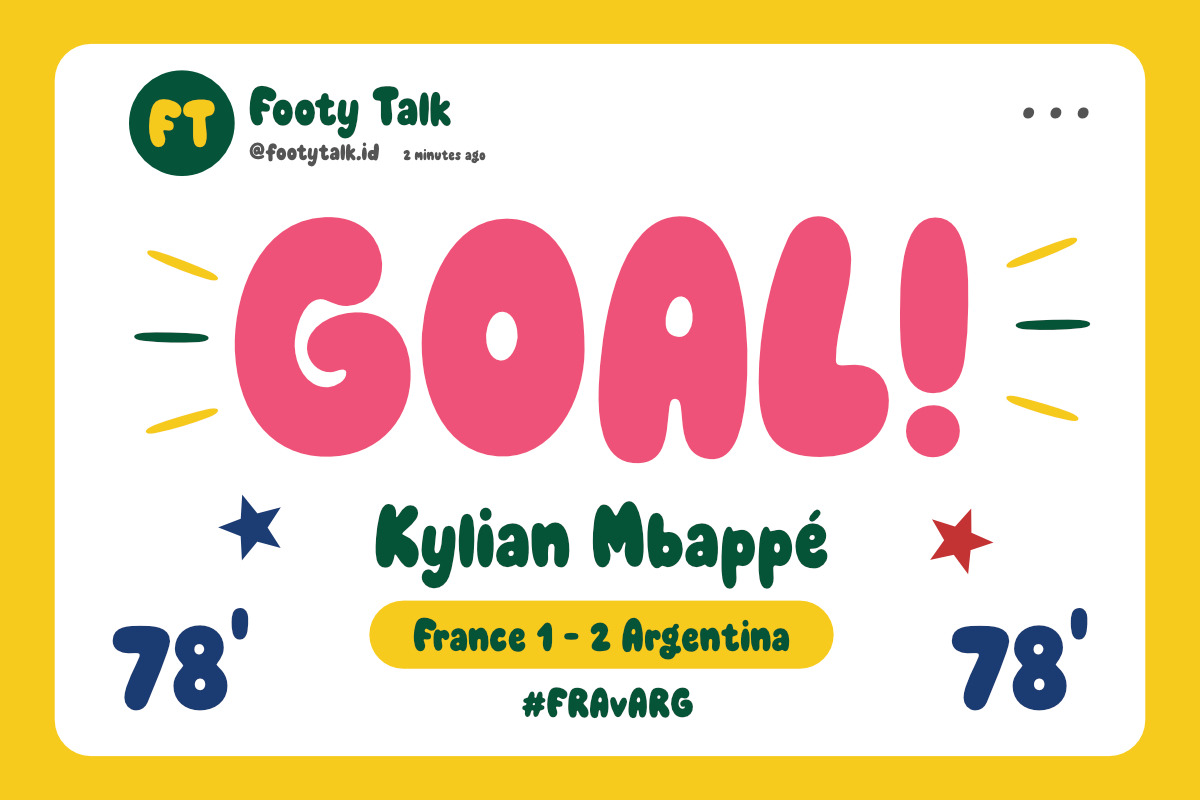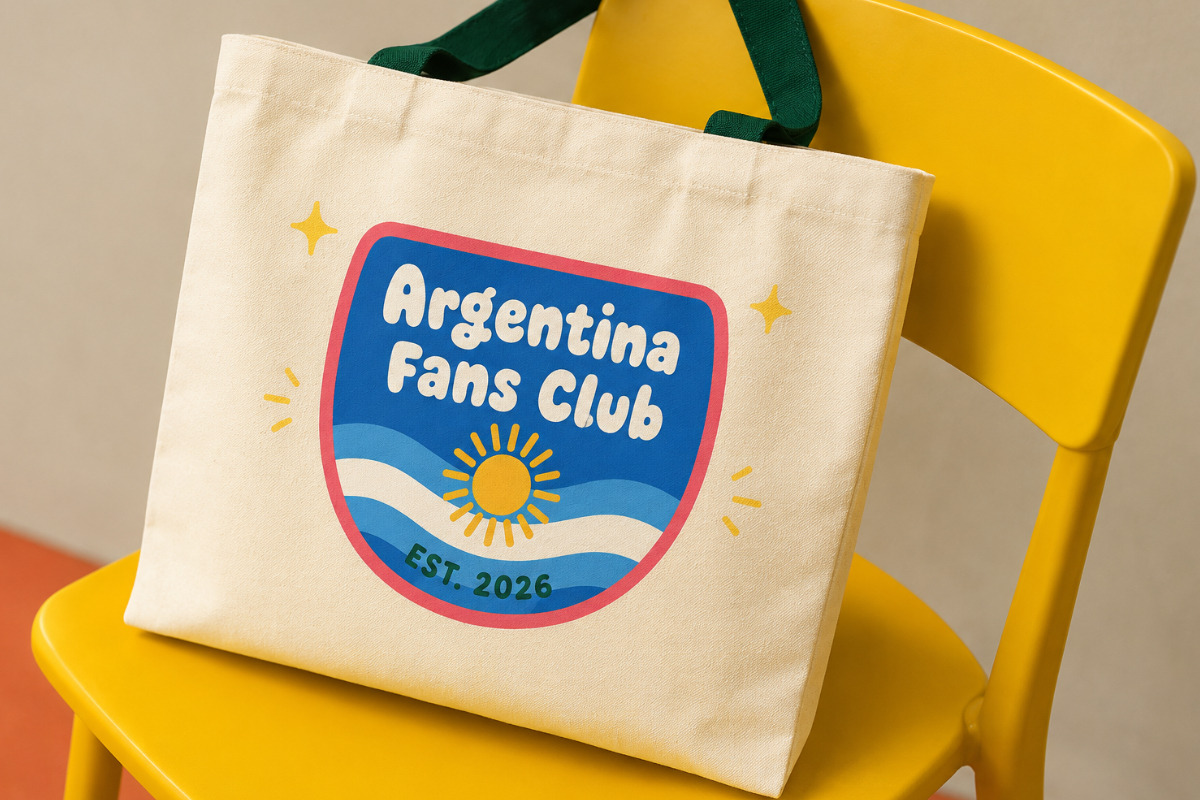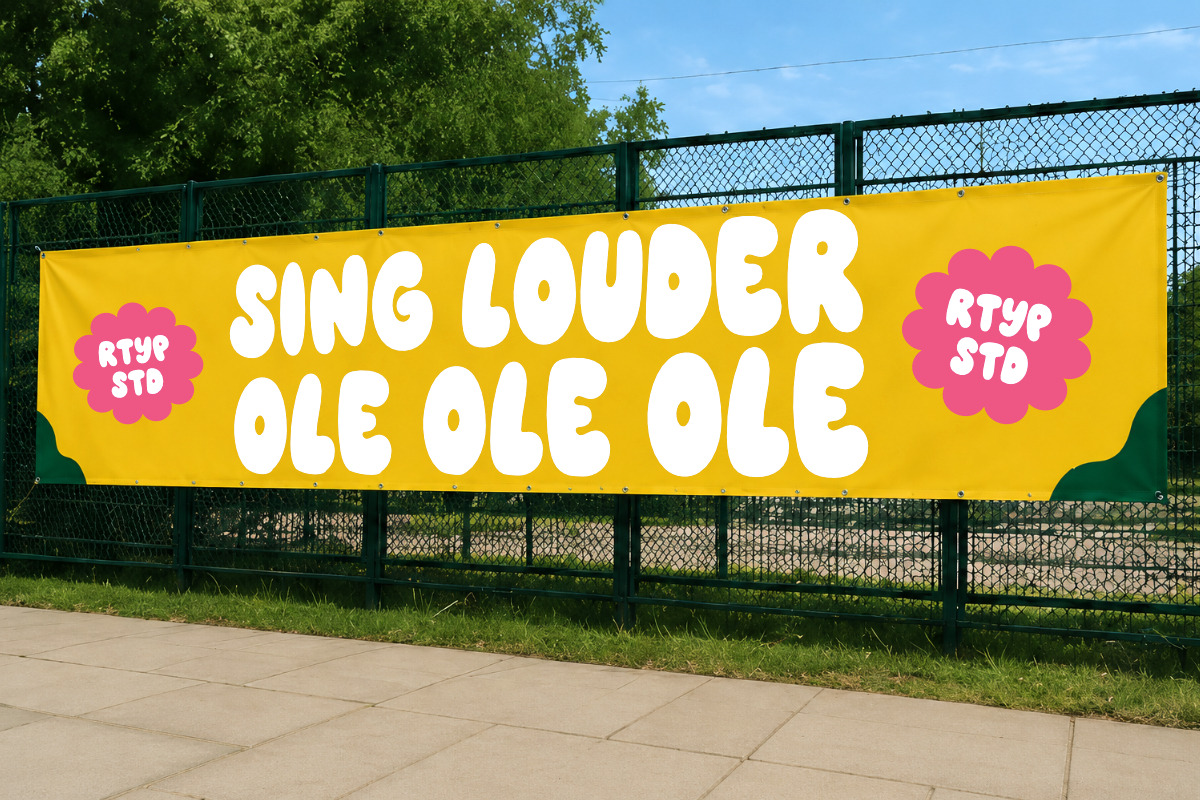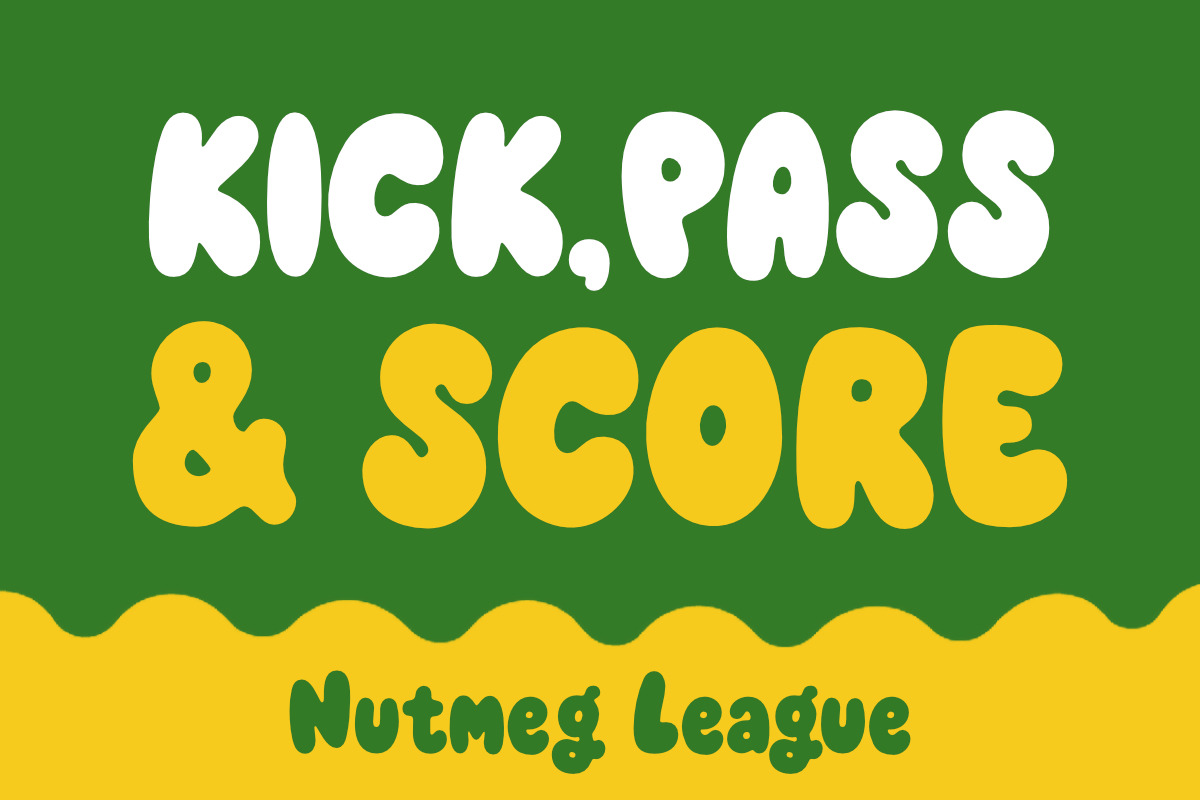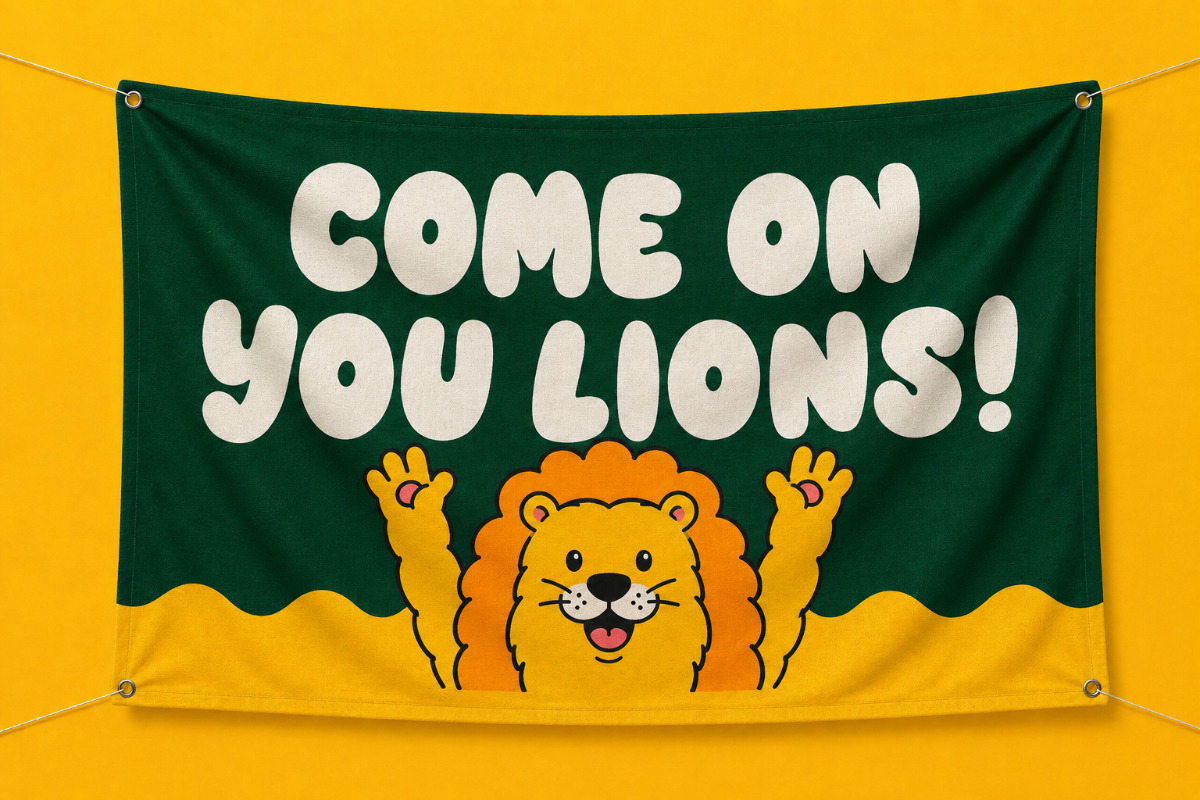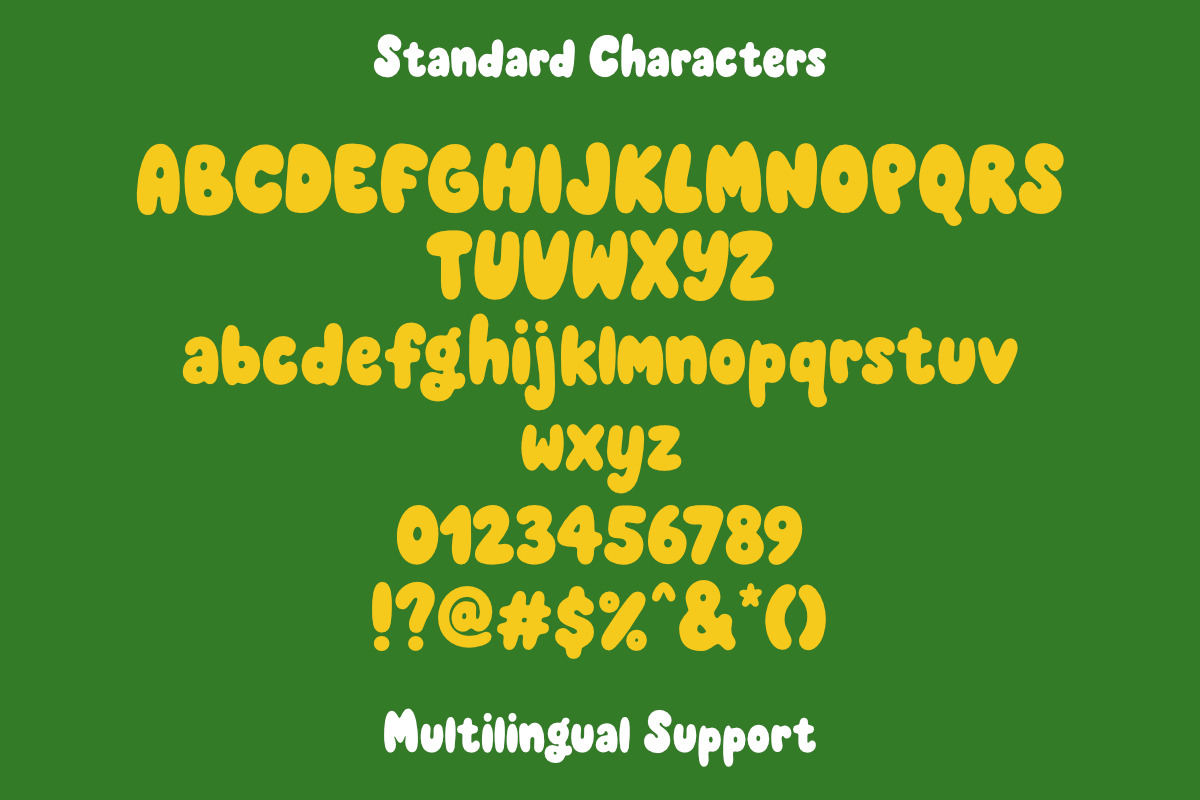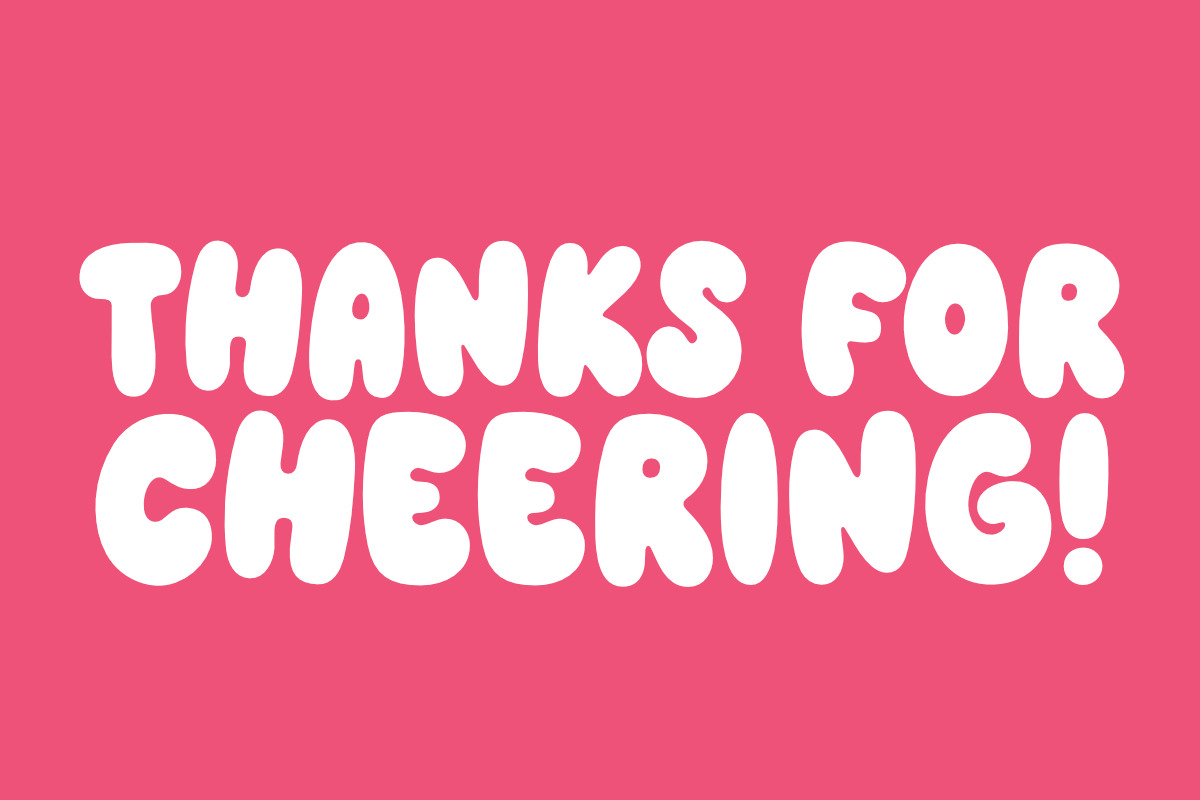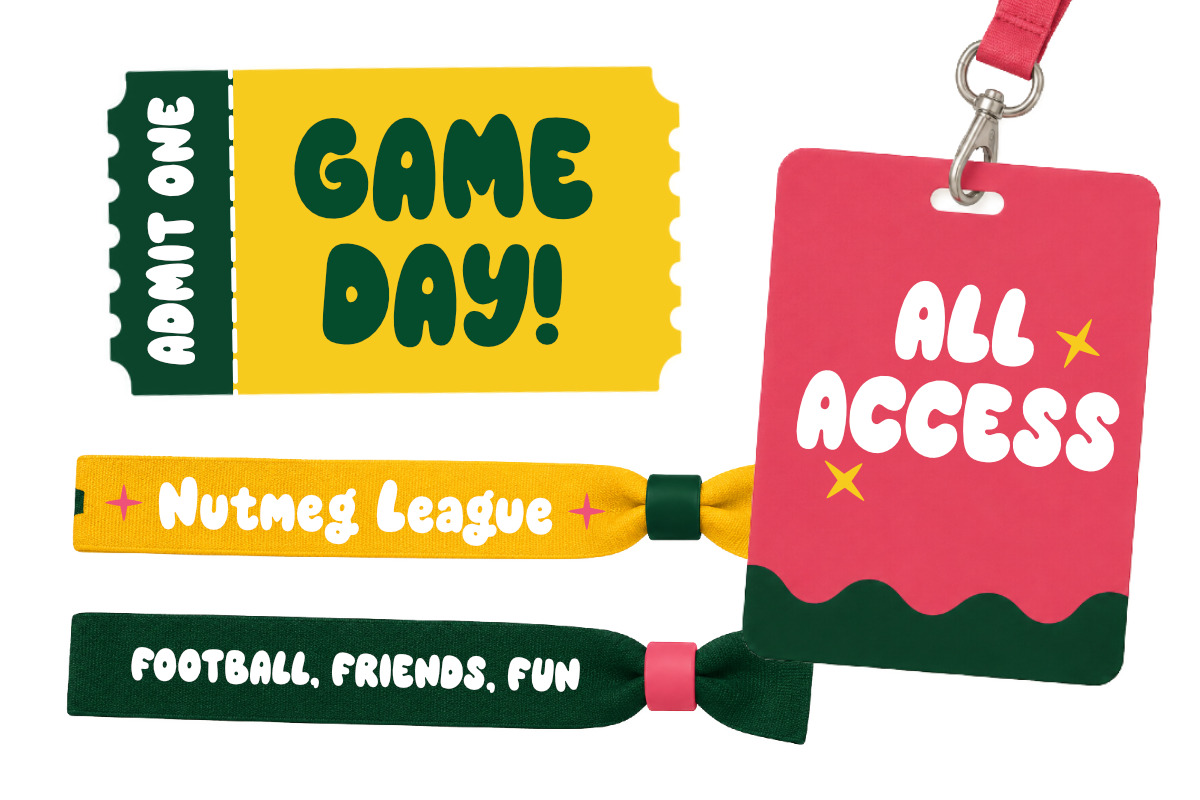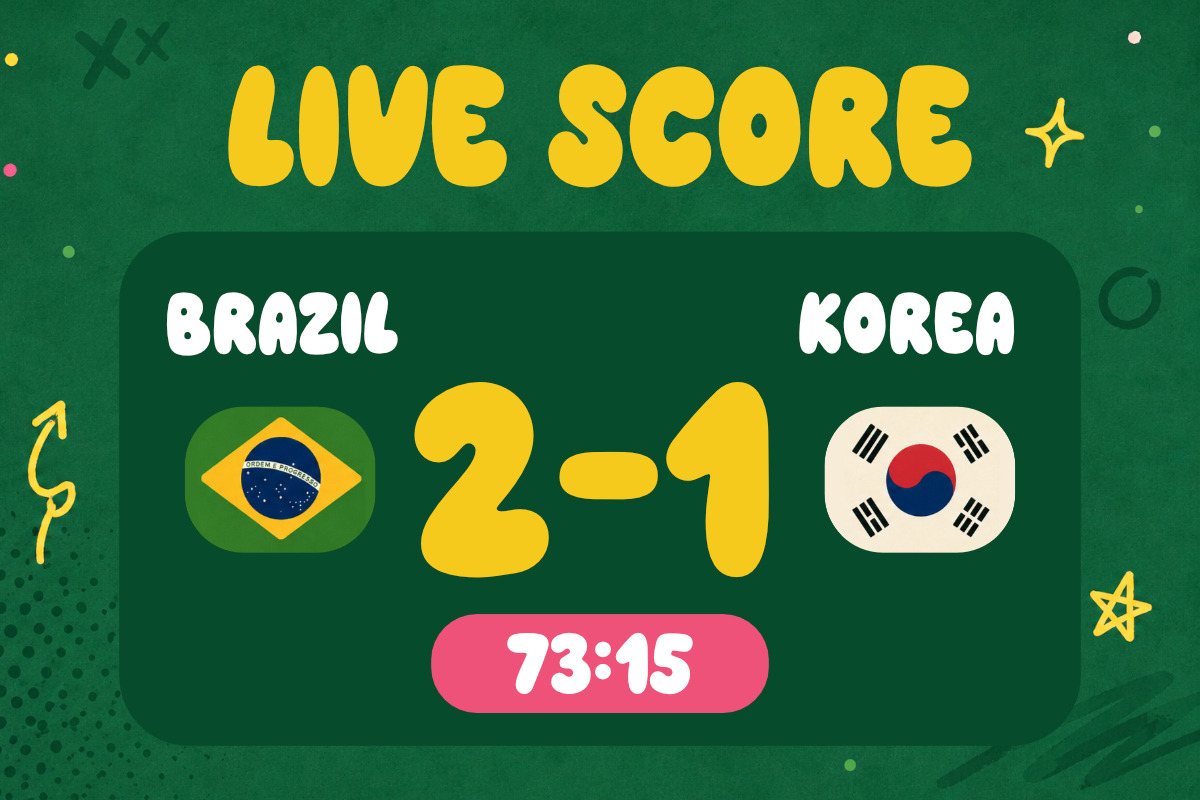
Nutmeg League
Nutmeg League is a playful display font inspired by football chants, match-day energy, and colorful supporter culture.
Designed with chunky bubbly shapes, soft curves, and quirky character forms, this font brings a loud, cheerful, and nostalgic vibe to your work.
Perfect for posters, sports branding, packaging, merchandise, social media graphics, kids projects, stickers, event visuals, and playful typography explorations.
From stadium banners to fan club badges, Nutmeg League captures the fun side of football culture with a bold personality that feels both retro and fresh.